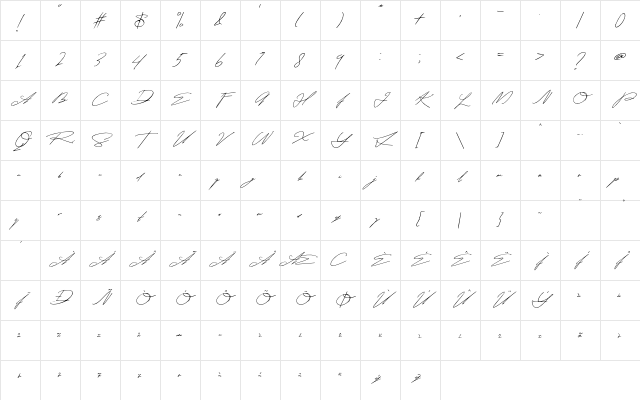
Niongeah Regular
Foundry: Mozyen Studio
Designer: Designed by Muhamad Ali H., Designer from Mozyen Studio
Design Context for Niongeah
Niongeah is a composed and adaptable typeface that performs quietly and consistently across a wide range of design contexts.